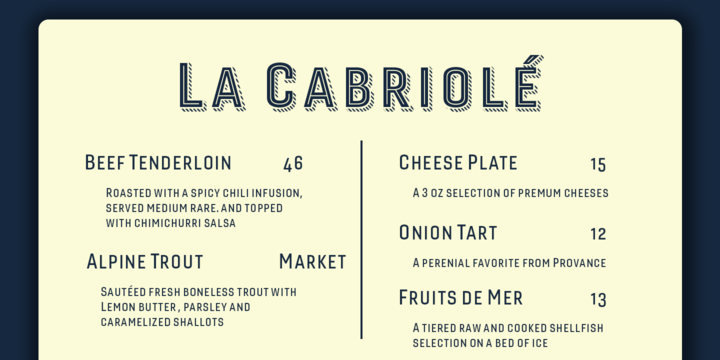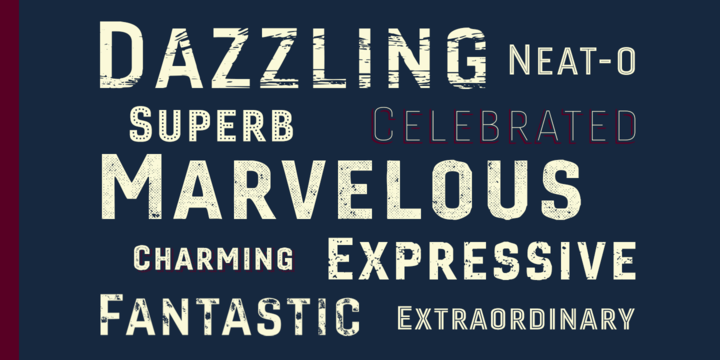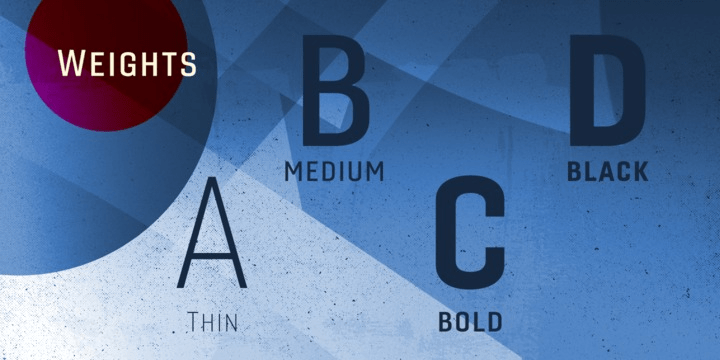
About Gineso Titling
Before the Great War, there were great posters. Posters of elegance and grandeur. Posters calling people to the pleasures of sunny southern France and to the perfections of northern Italy\’s dolce vita. Le Havre, based on a poster by AM Cassandre, was…